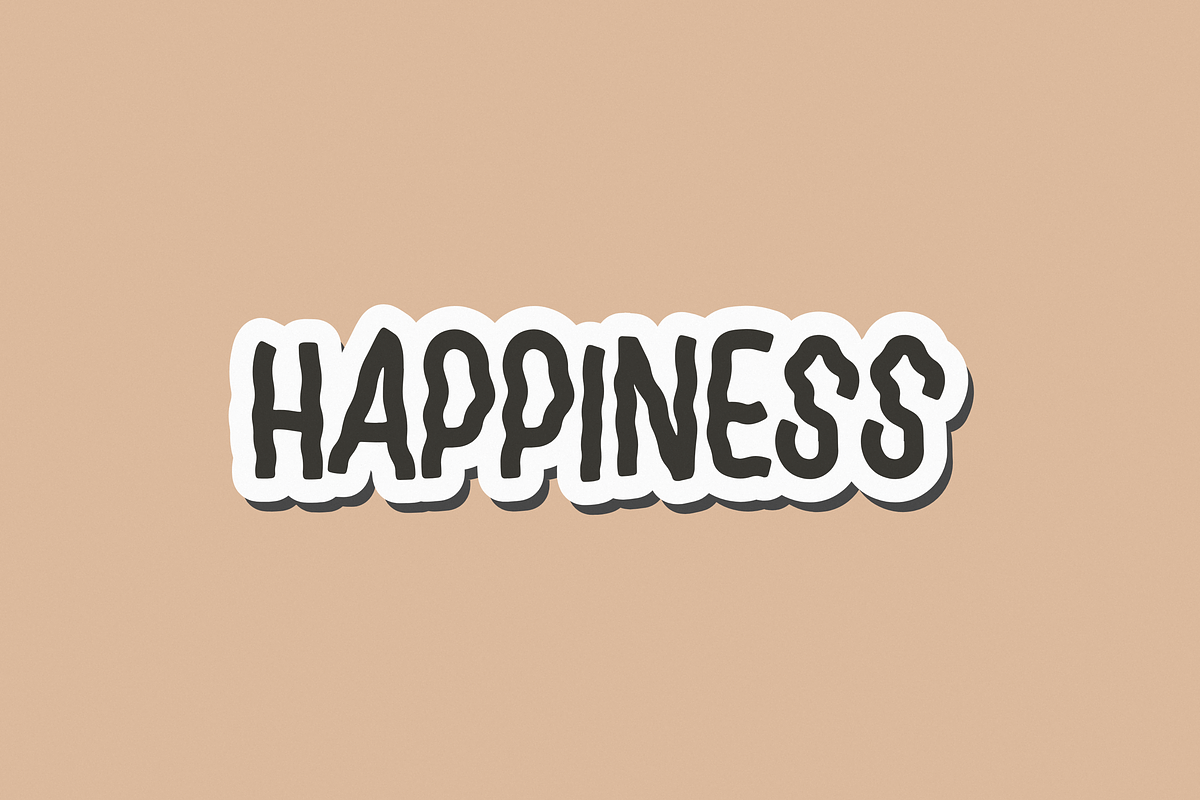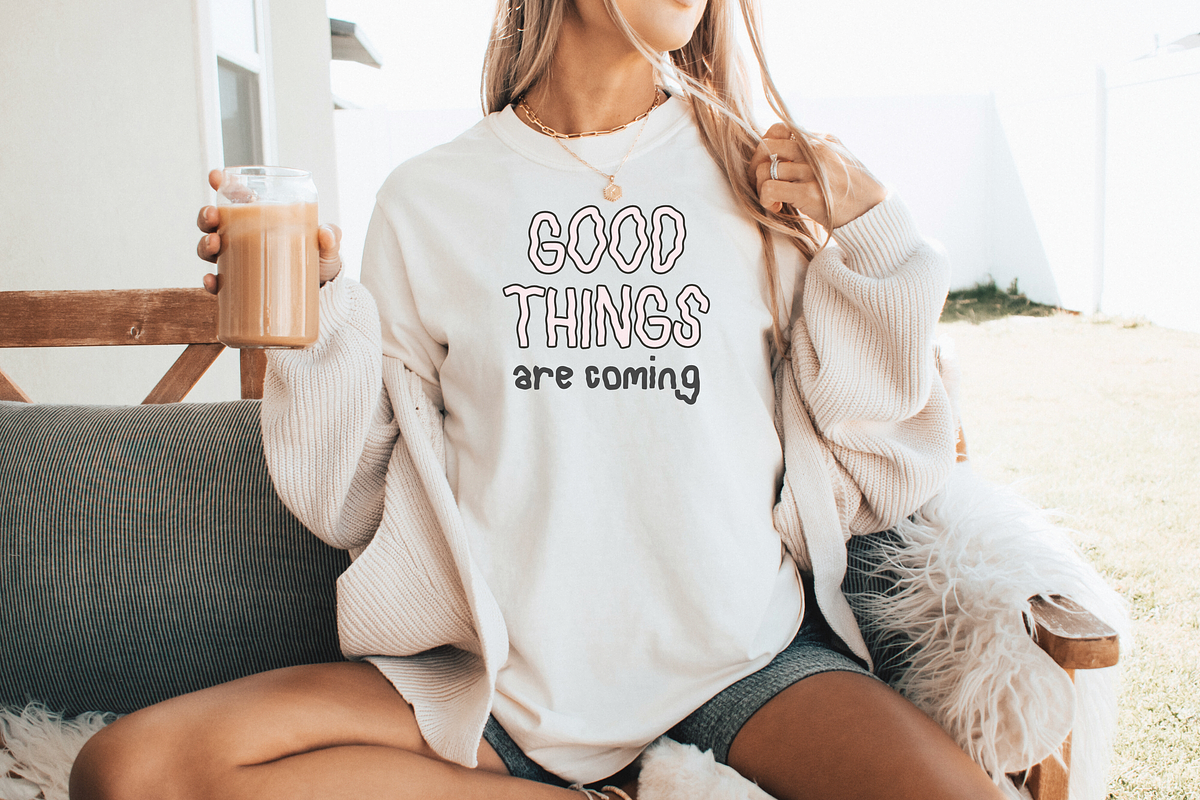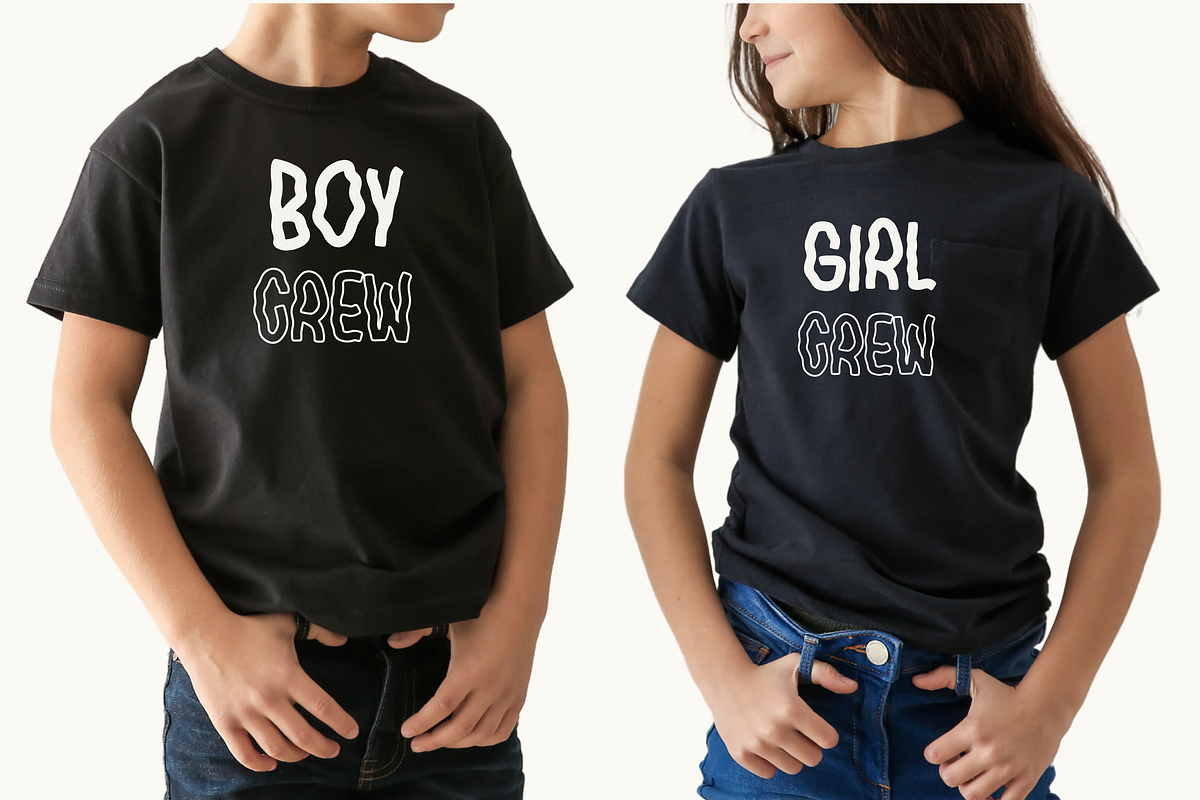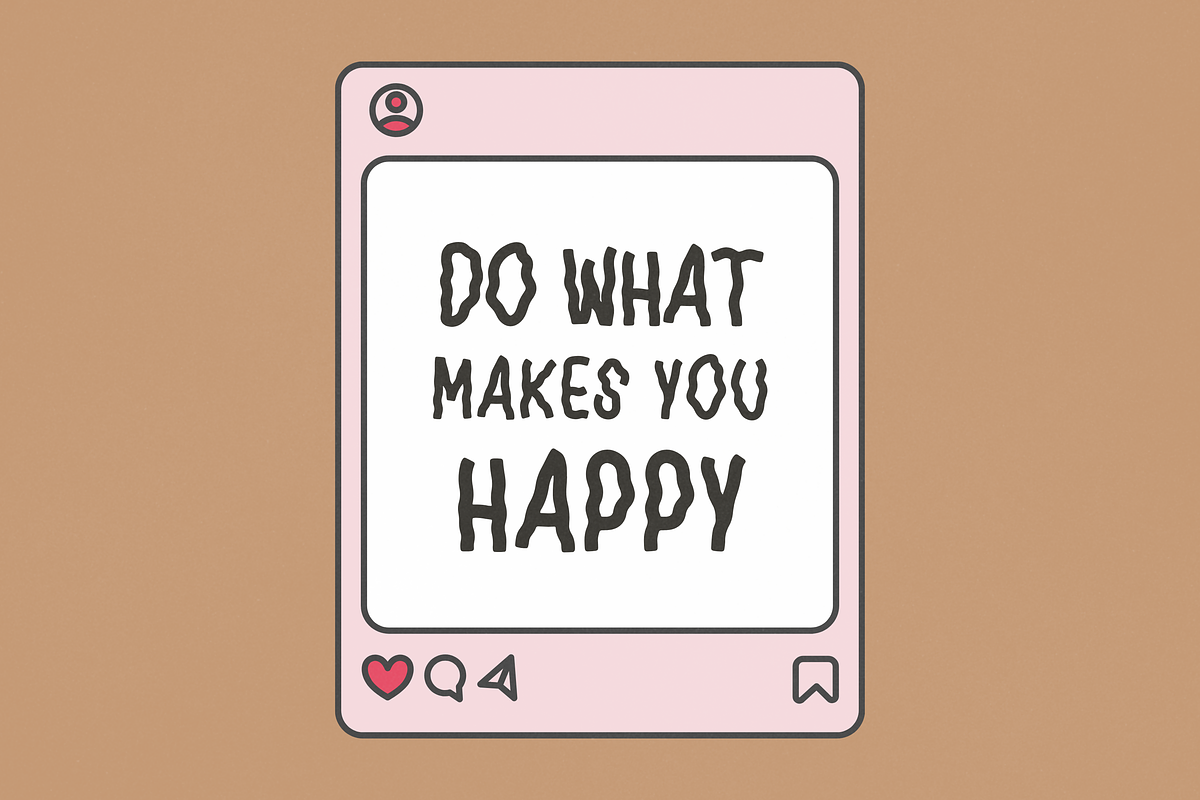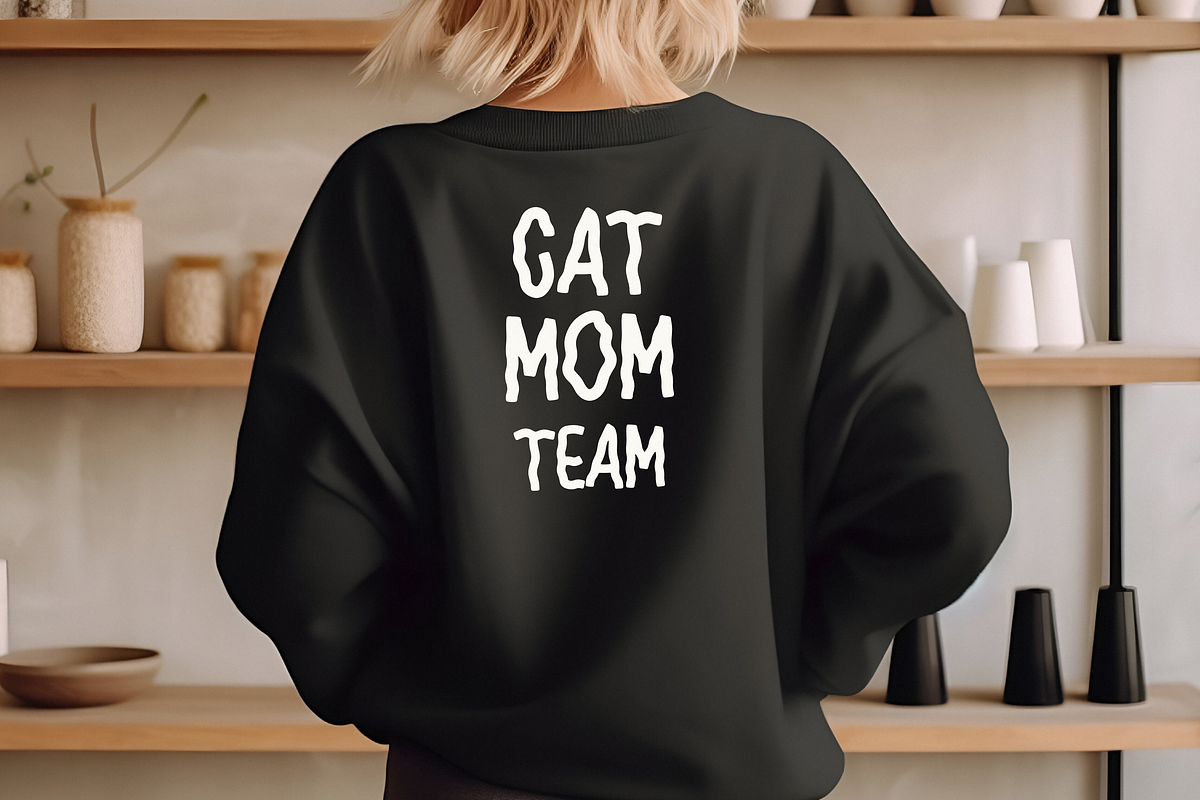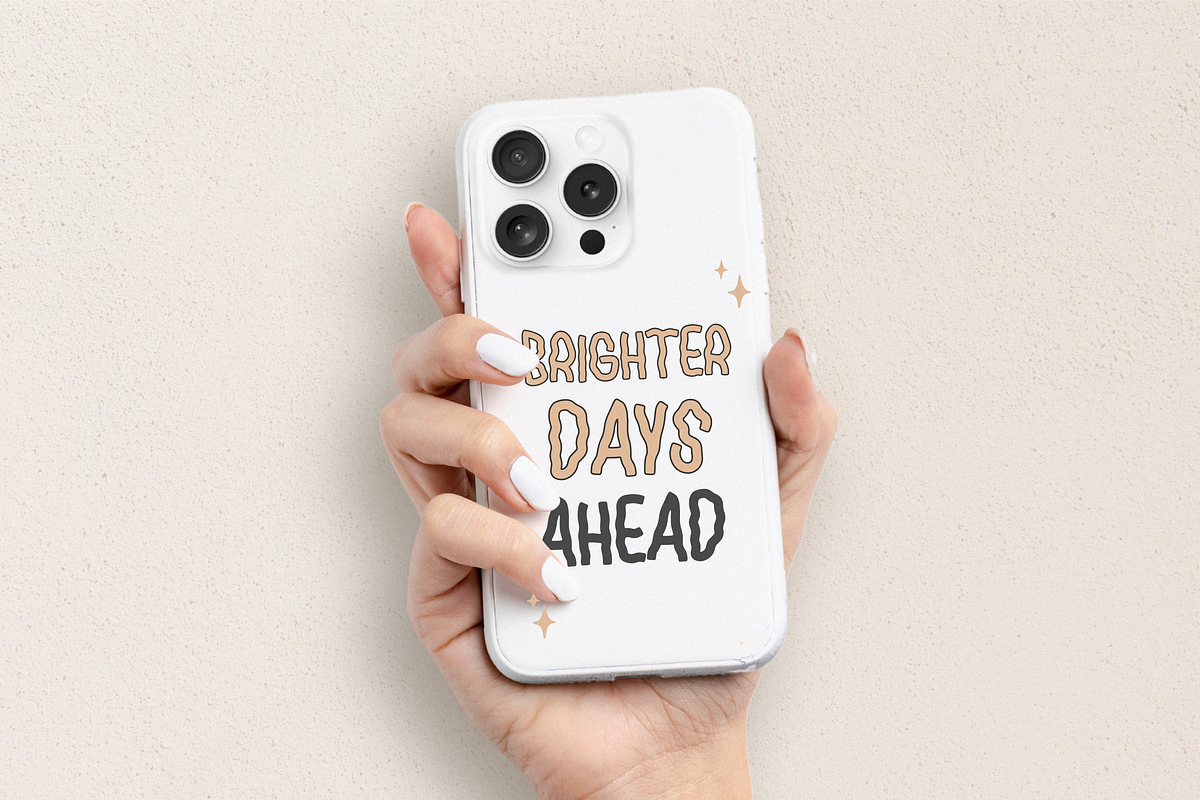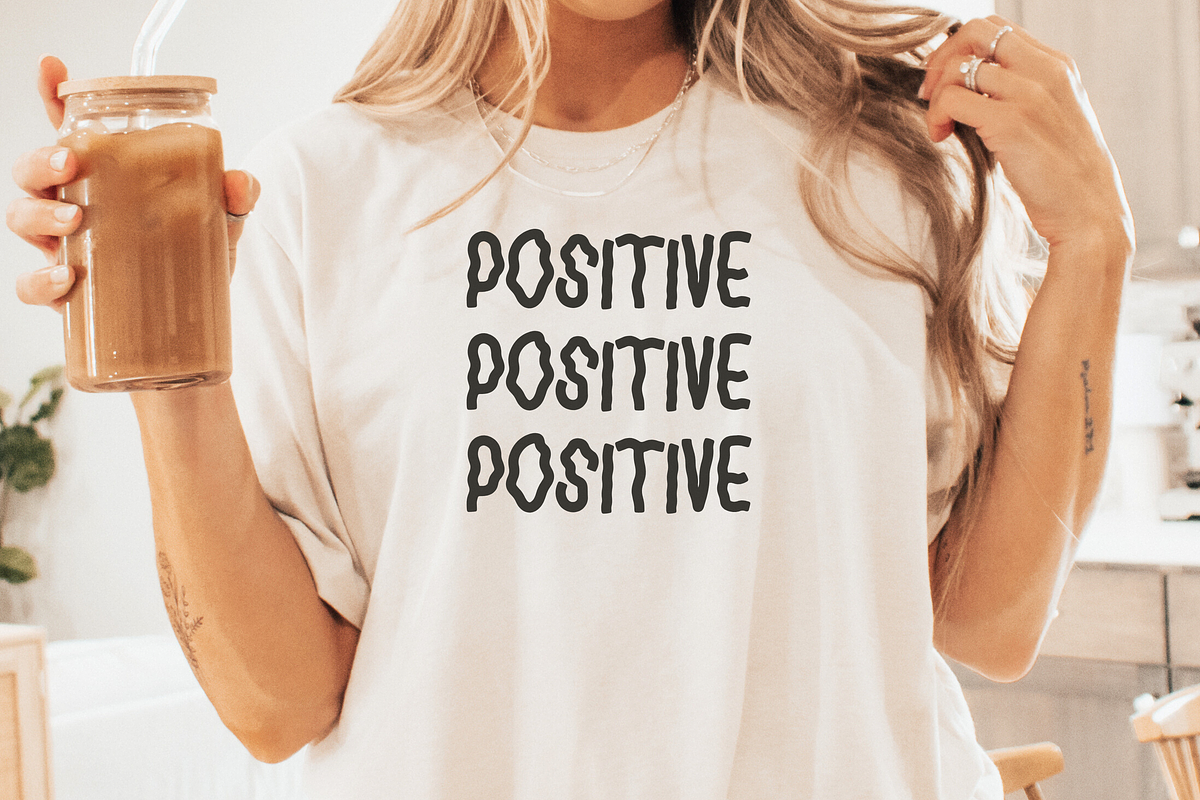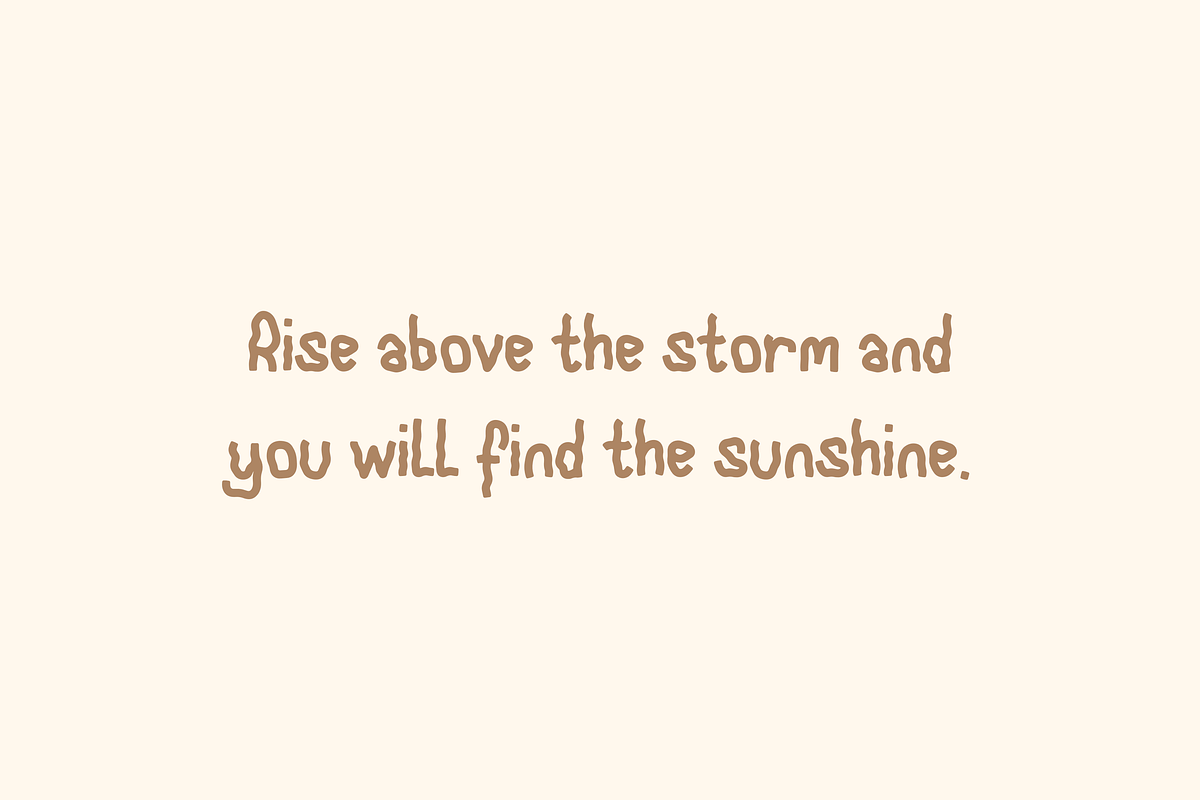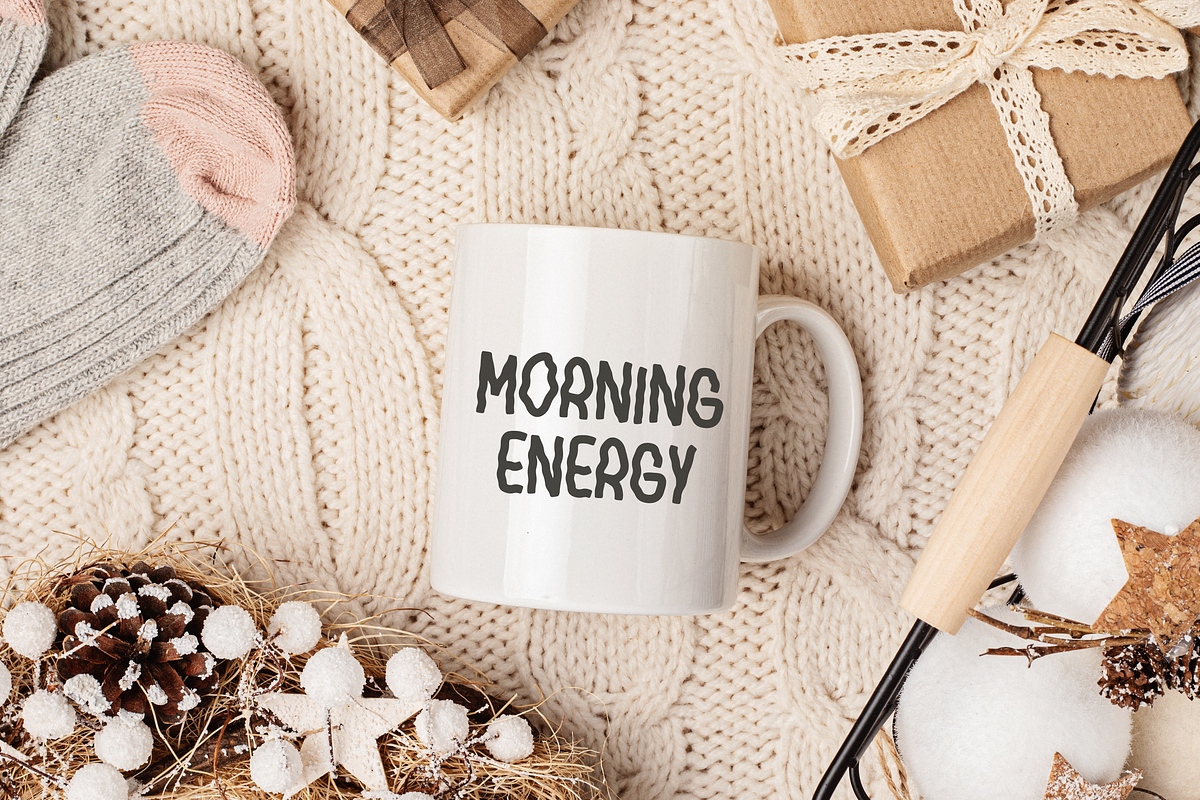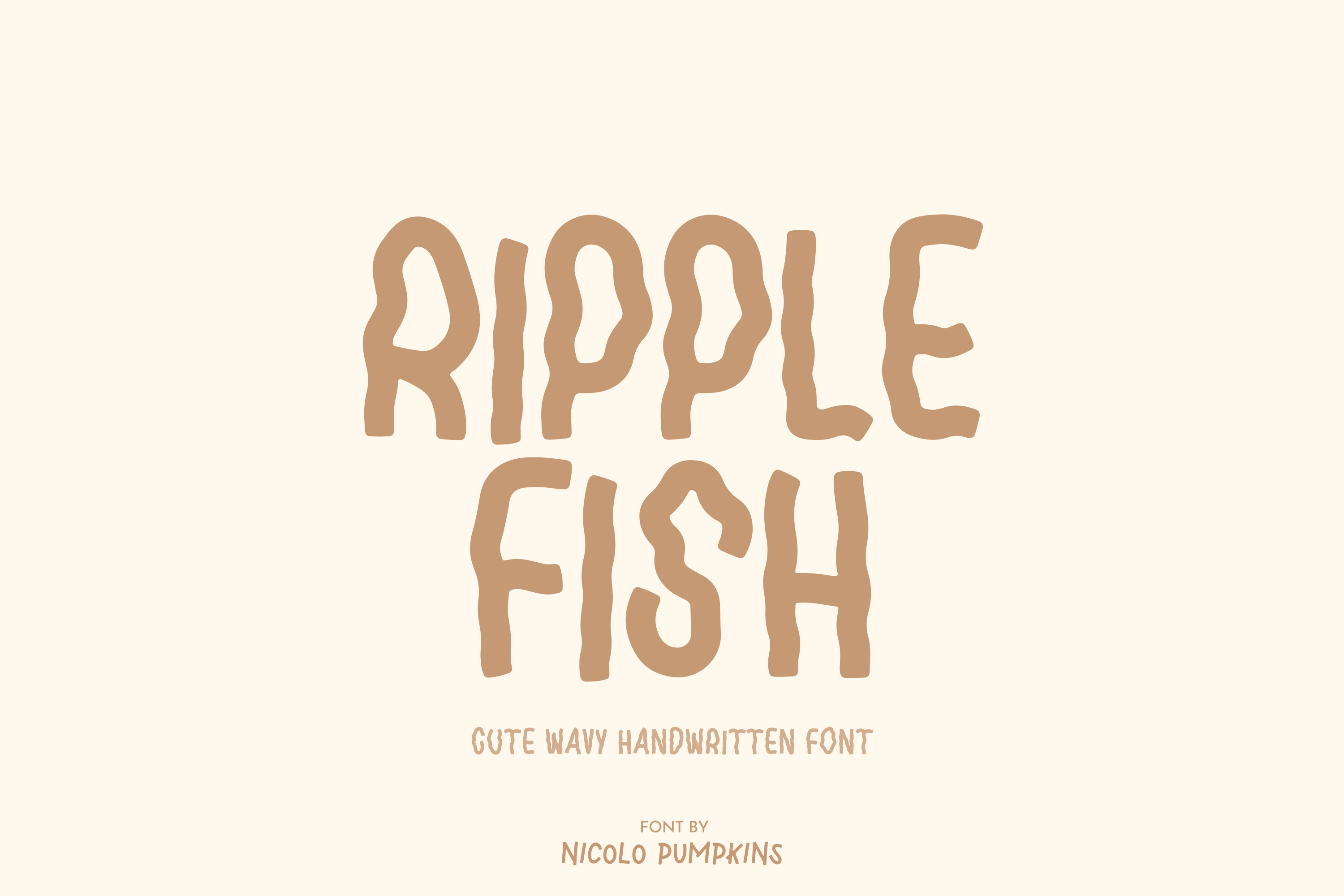
RIPPLE FISH Font
RIPPLE FISH FONT A cute bold handwritten font with wavy style.
✦ RIPPLE FISH FONT is perfect for: shirts, mugs, logos, wedding invitations, poster, greeting cards, social media, branding, Procreate, digital note taking on digital planner, and more!